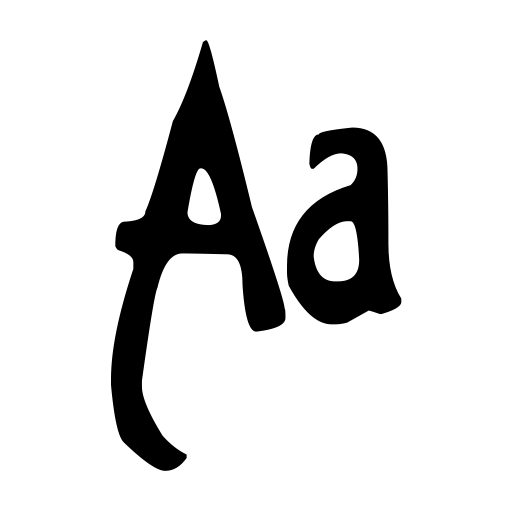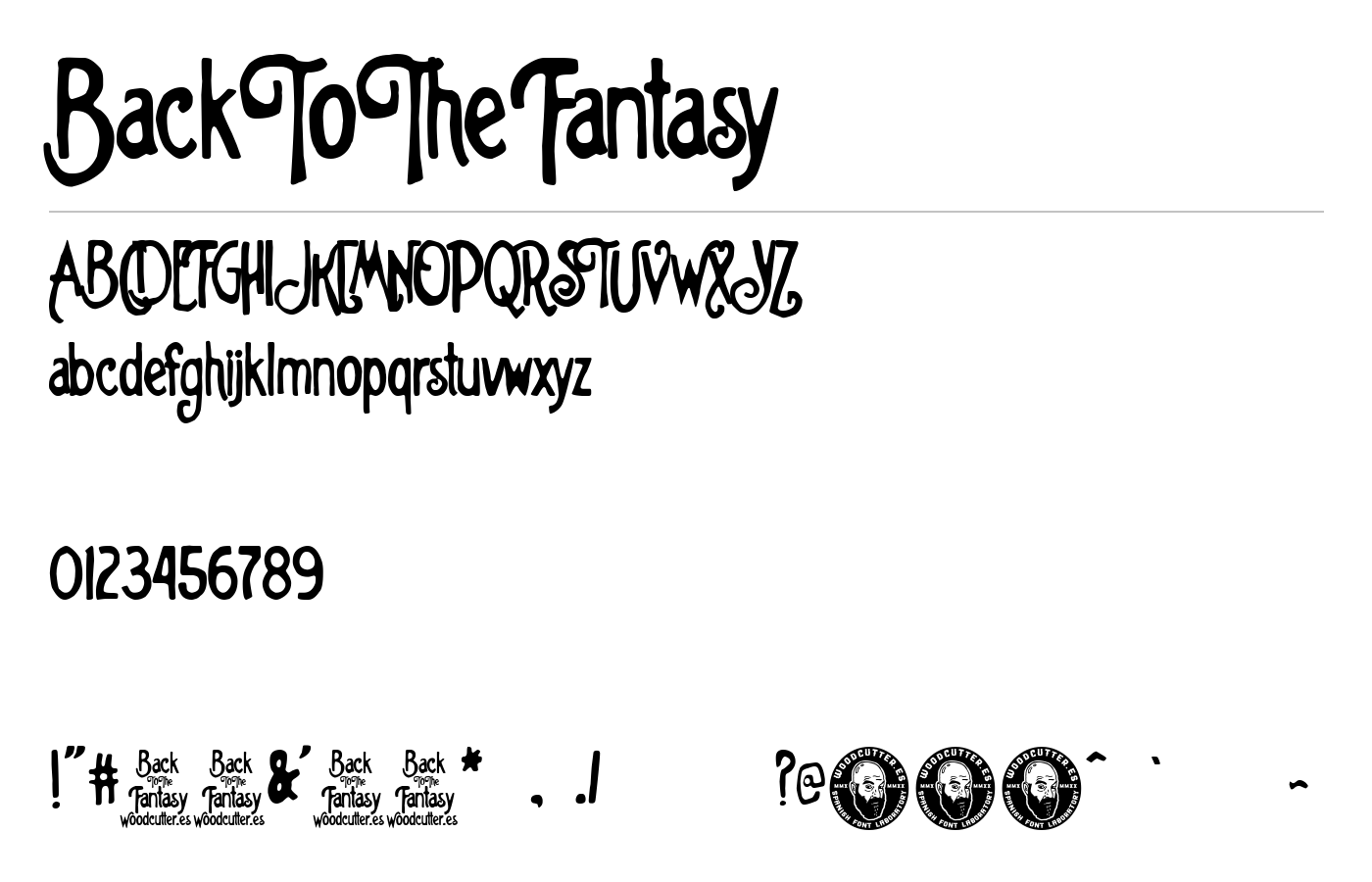
Back To The Fantasy is a whimsical, hand-drawn sans serif font with playful, irregular letterforms that evoke a sense of creativity and imagination. Its tall, narrow characters feature smooth curves and quirky details, making it perfect for fun, fantasy-themed designs, children’s books, and artistic branding that needs a lively, informal touch. This font brings a unique, magical personality that works well in headlines, posters, and packaging where a distinctive, friendly vibe is desired.
Back To The Fantasy Font
About Back To The Fantasy Font